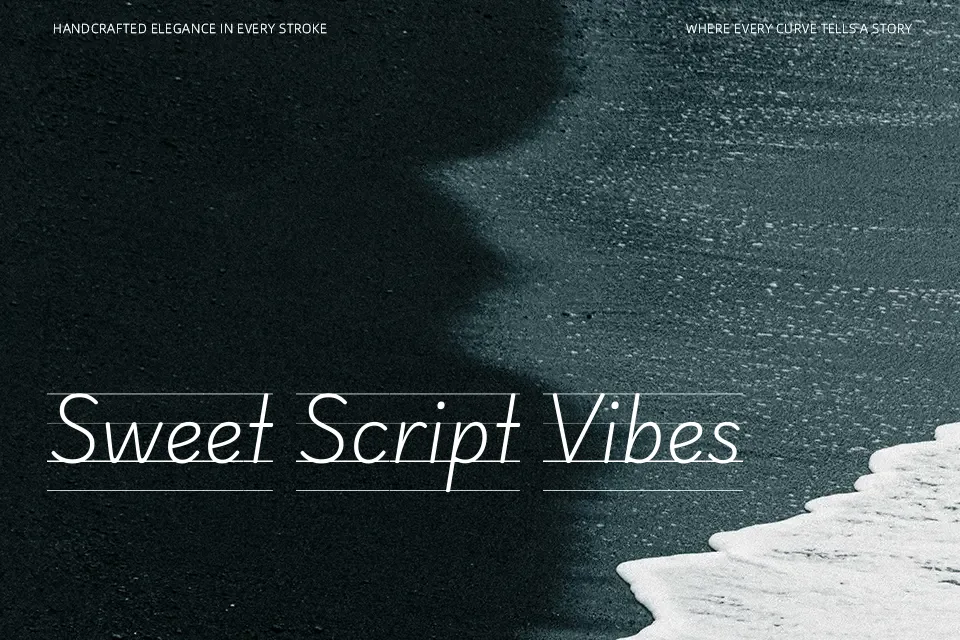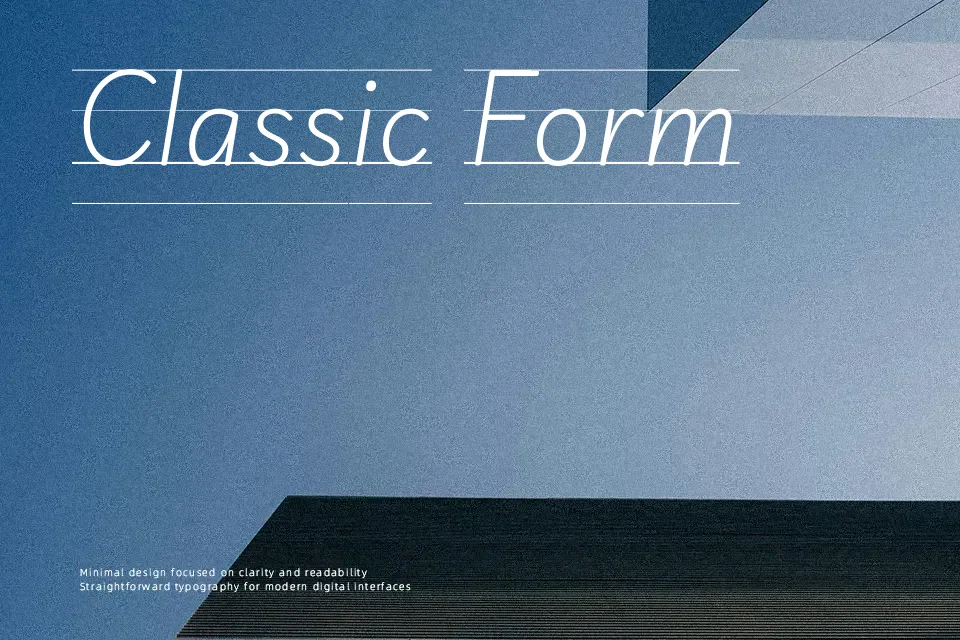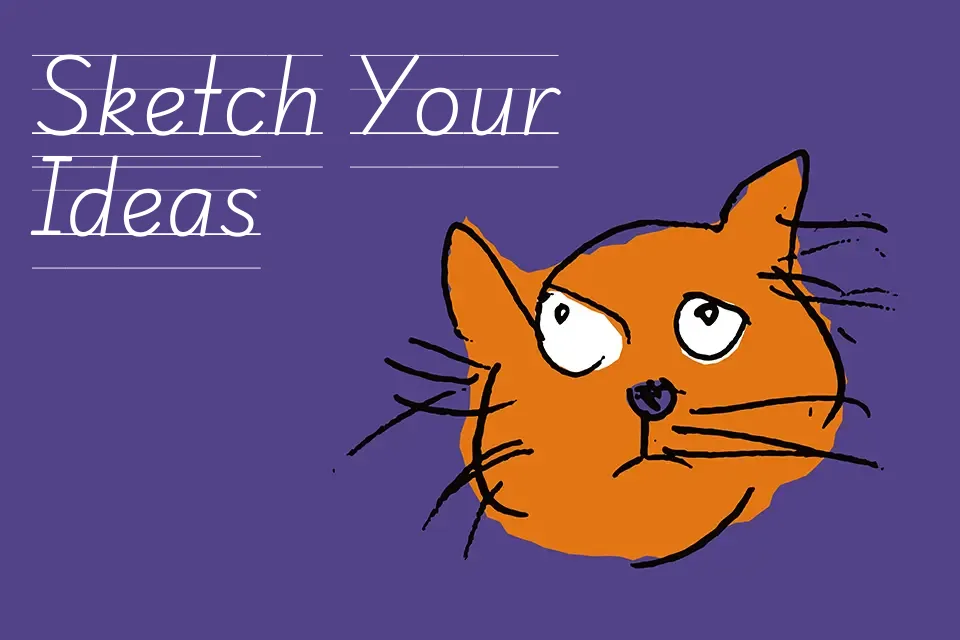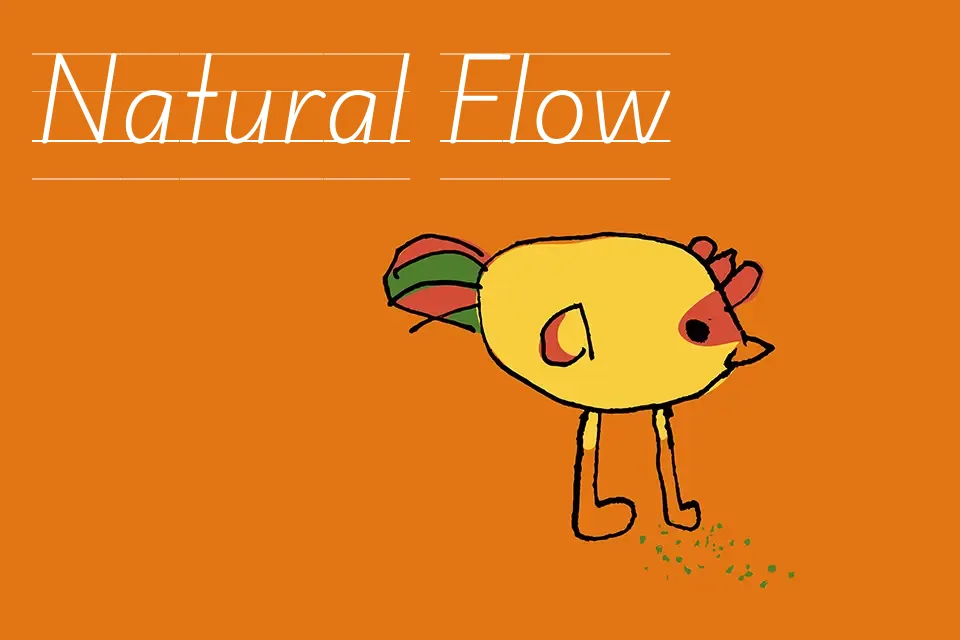
Playwrite NZ Basic Guides Font
Playwrite NZ Basic Guides is a neat, school-style handwritten typeface with a medium stroke, open counters, and clear spacing, designed to sit on visible guidelines that trace the baseline, x-height, ascenders, and descenders. Its structure feels informal yet disciplined, so text stays approachable while still looking well organised on the page. This works especially well for early literacy materials, handwriting workbooks, classroom charts, and teacher-made resources where letter proportions need to be obvious at a glance. It can feel too didactic or busy in brand identities, dense body text, or polished editorial layouts, where the guides and school flavour become distracting.
primary handwriting worksheets and practice pages
early literacy workbooks and exercise sheets
classroom posters and anchor charts
teacher-made printables and school resources
logo or brand identities needing a polished look
long-form body copy in books or magazines
minimalist editorial or luxury packaging
interfaces where guideline markers add visual noise
Perfect for branding, editorial, and headline, with a clean and display style.